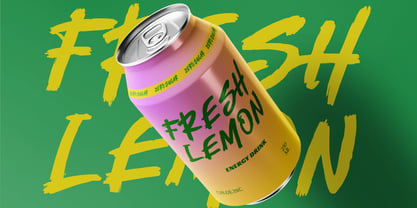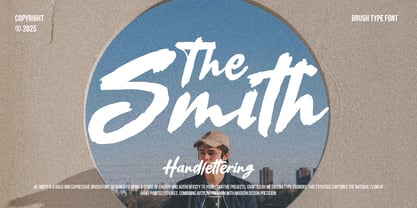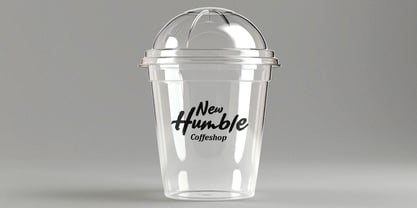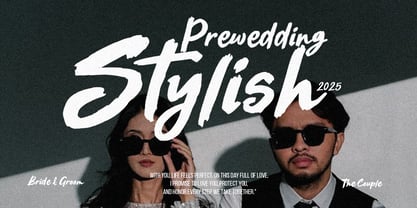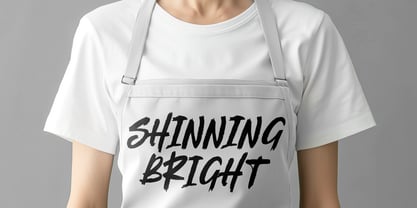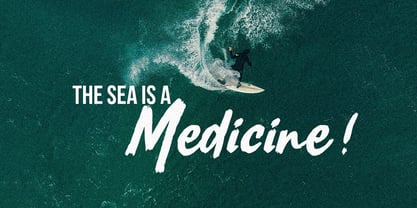
The Smith Font Family was designed by Ainal Mardiah and published by Metasena Typefoundry. Smith contains 1 styles. More about this family
Smith A brush font is a type of lettering that imitates the style of writing with a brush, which usually looks like the result of a brushstroke on paper or canvas. This font features thick and thin lines that are uneven, giving a dynamic and natural impression. Brush fonts are typically used in designs that require a creative, expressive, or artistic touch, such as logos, posters, invitations, or digital artwork. The appearance can range from rough and messy to smooth and elegant, depending on the style of brushstroke applied to the letters.
Designers: Ainal Mardiah
Foundry: Metasena Typefoundry
Smith